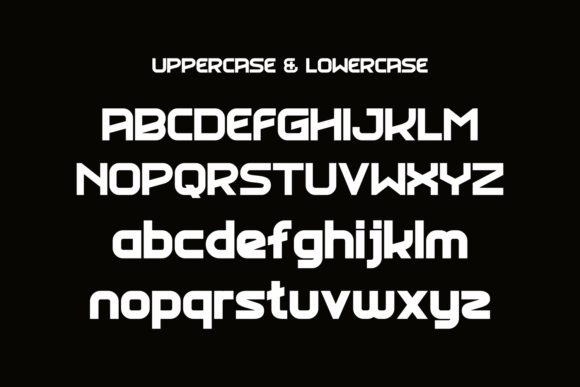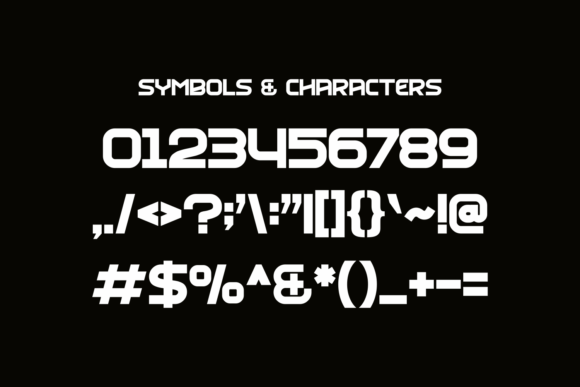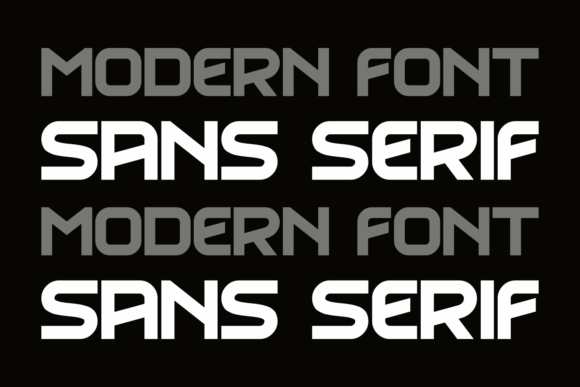
Introduction to Gebar Font
You’ve spent hours pouring your heart and soul into your latest creative project, from the initial concept to the final touches. But have you ever felt like something’s missing, like your design just needs that one special something to take it to the next level?
That’s where the Gebar Font comes in – a bold and assertive sans serif font that’s guaranteed to elevate your creations. Whether you’re working on a high-quality logo, branding materials, or even a simple social media graphic, Gebar Font has the potential to add that extra oomph you’ve been searching for.
Key Features of Gebar Font
- Designed with a clean and modern aesthetic, making it suitable for various design applications.
- Perfect for designers and artists looking for a versatile and easy-to-use font for their creative projects.
Honest Review: Gebar Font
I recently stumbled upon the Gebar Font, and I must say it’s been a great addition to my design resources. This free download has been a game-changer for my creative projects, offering a unique touch that sets them apart.
One of the things I love about Gebar Font is its high quality. The design is sleek and modern, making it perfect for a variety of projects, from logos to graphics. The font’s versatility is a major plus, allowing me to experiment with different styles and layouts.
Here are some of the things that work well about Gebar Font:
However, I do have to mention a few limitations:
- Only one style is available (although it’s a great one!)
- No extended character set (limited to basic Latin alphabet)
Overall, I’m impressed with the Gebar Font. It’s a great design resource that’s easy to work with and offers a lot of flexibility. If you’re looking for a free, high-quality font to add some flair to your creative projects, I’d definitely recommend giving Gebar Font a try.
Tips for Getting the Most Out of Gebar Font
Gebar Font is commonly used in creative projects such as logo design, branding, and typography-based art. Its high-quality design and transparent background make it an excellent choice for a variety of design applications.